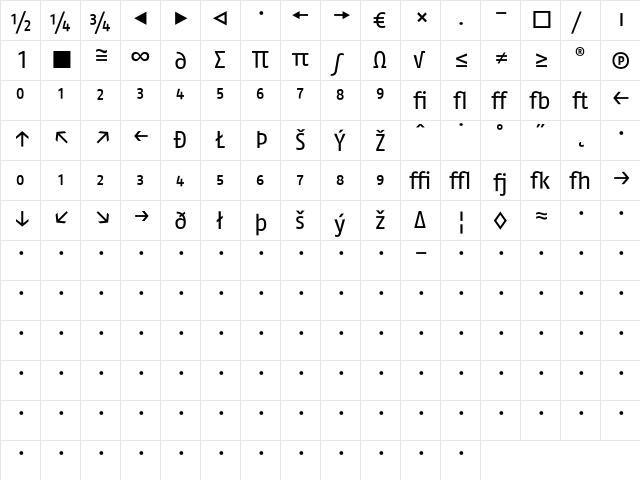
FagoNo-Expert Regular
Design Context for FagoNo-Expert Typeface
FagoNo-Expert is a composed and adaptable typeface that performs quietly and consistently across a wide range of design contexts.